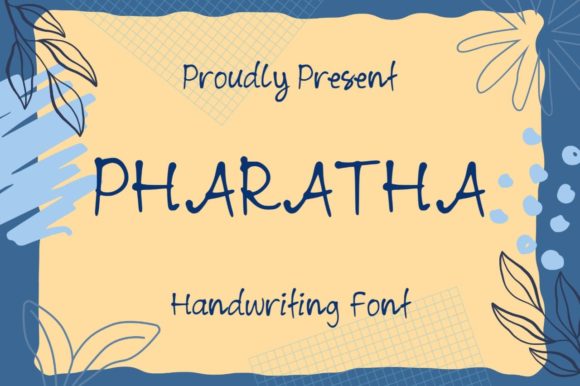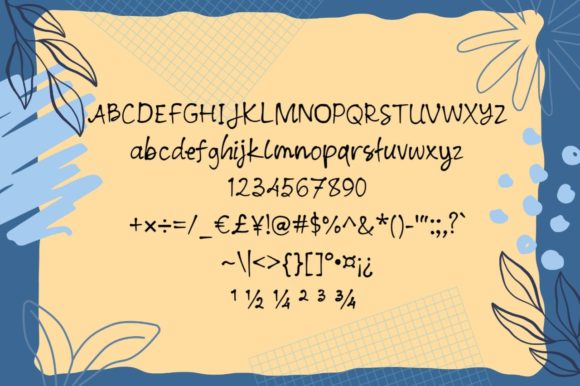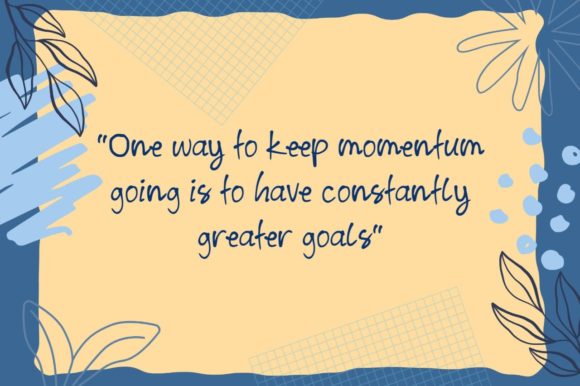
Pharatha Font
Pharatha Font: A Charming Script for Versatile Designs
The Pharatha font is a distinctive handwritten script that brings uniqueness and simplicity to various design projects. Its versatile nature makes it perfect for crafts, digital design, presentations, and greeting cards.
Enhancing Crafts and DIY Projects
In crafts, Pharatha adds a personal flair to creations. It infuses handmade cards, scrapbooks, and DIY projects with authenticity and charm, making each piece unique.
For digital design, this font stands out with clean letterforms. It adds character to web graphics, social media posts, and digital illustrations, engaging audiences effectively.
Pharatha in Presentations and Greetings
Presentations gain a fresh look with Pharatha’s unique style. It makes headings and titles more approachable, enhancing content memorability.
Greeting cards become special with this font’s distinctiveness. It lends warmth to birthday wishes, thank-you notes, and holiday greetings, making messages more heartfelt.
Versatility of Pharatha Font
Pharatha’s simplicity ensures readability across various applications. Its uncomplicated design integrates seamlessly into different contexts, from formal to casual.
Creative Applications
This font offers endless opportunities for creative work. Its charm enhances diverse projects, adding individuality to each design.
Conclusion: Pharatha – A Font for Distinctive Expression
Pharatha is a versatile script that brings charm to a wide array of design applications. From crafts to digital media, it consistently delivers uniqueness and simplicity. As designers explore its possibilities, they’ll find Pharatha an essential tool for creating visually appealing and distinctive work.